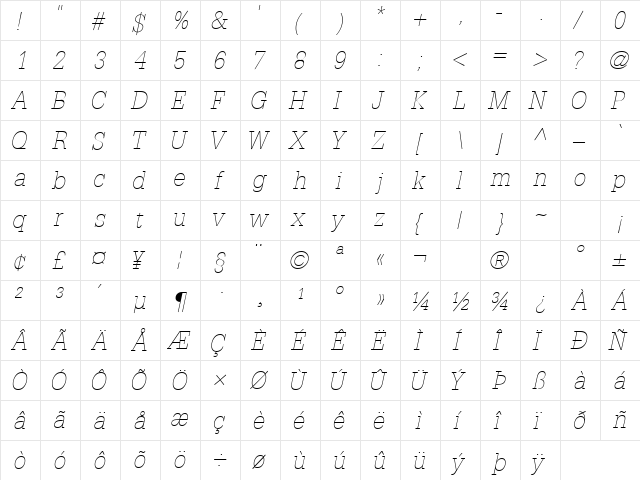
InstallationLightSSK Italic
Design Context for InstallationLightSSK Typeface
InstallationLightSSK offers clean, dependable letterforms without strong stylistic allegiance, making it a practical choice for designers who need flexibility. Its italic angle brings a sense of urgency and motion to the letterforms. Its slender proportions lend an understated elegance to any composition.
Pro Tip: Try InstallationLightSSK for annotation and caption copy alongside an upright companion — the contrast in angle creates a dynamic but ordered typographic system.